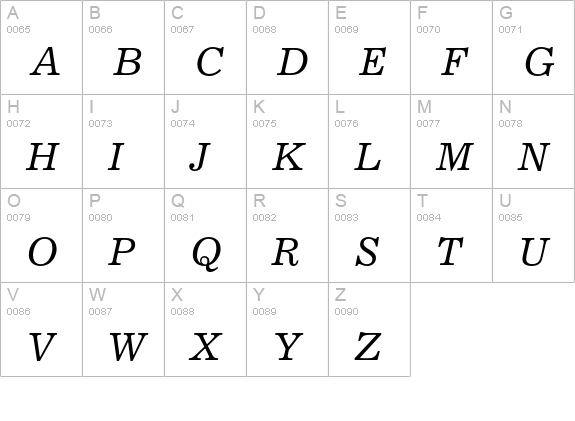
Excelsior EastA Italic Font Details
Excelsior EastA Italic is a distinctive, italic variant in the Excelsior typeface family \xE2\x80\x94 well suited to design and typography projects.
Excelsior EastA Italic font is a stunning and elegant typeface that exudes sophistication and class. Its sleek and modern design makes it perfect for adding a touch of style to any project. The italicized characters add a sense of movement and dynamism, making text appear more dynamic and engaging. What makes Excelsior EastA Italic font even more appealing is that it is available for free download at FontsMarket.com. This means that you can easily access this high-quality font without any cost, making it a great choice for designers and creatives looking to elevate their work without breaking the bank. Whether you're working on a branding project, a website design, or any other creative endeavor, Excelsior EastA Italic font is sure to make a statement and leave a lasting impression. Download it for free today and see how it can take your designs to the next level!